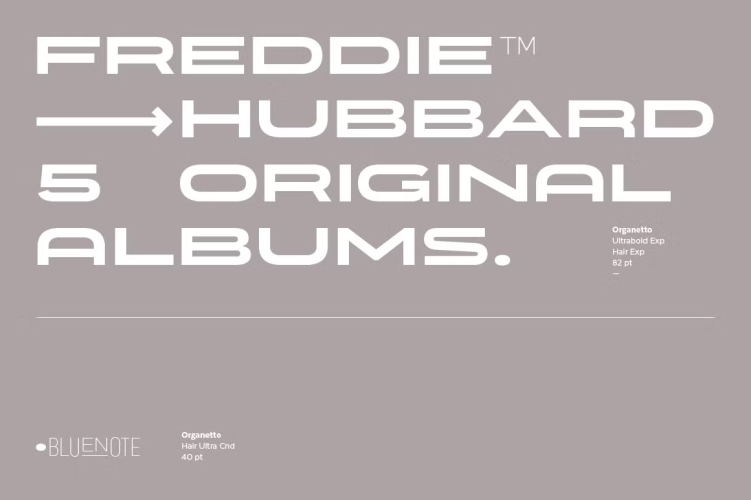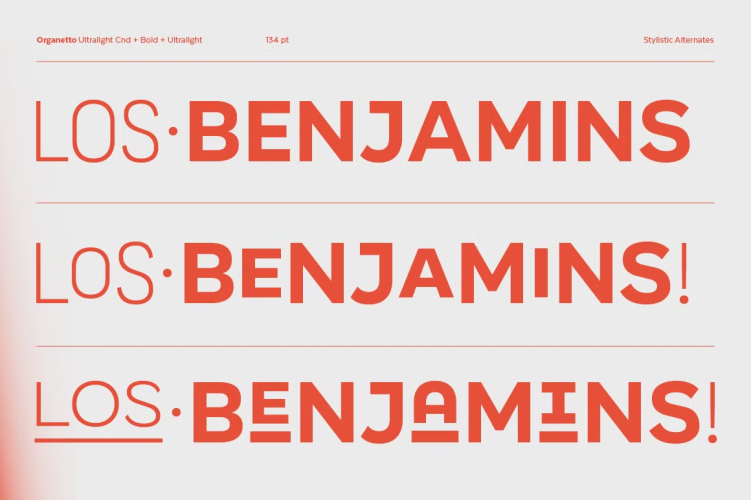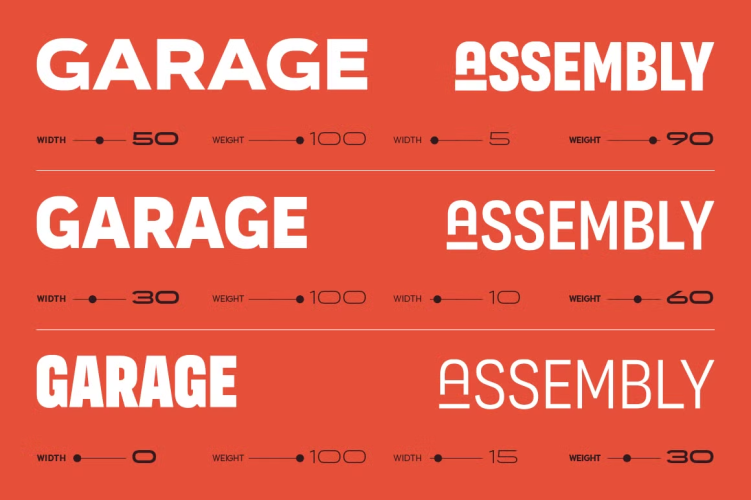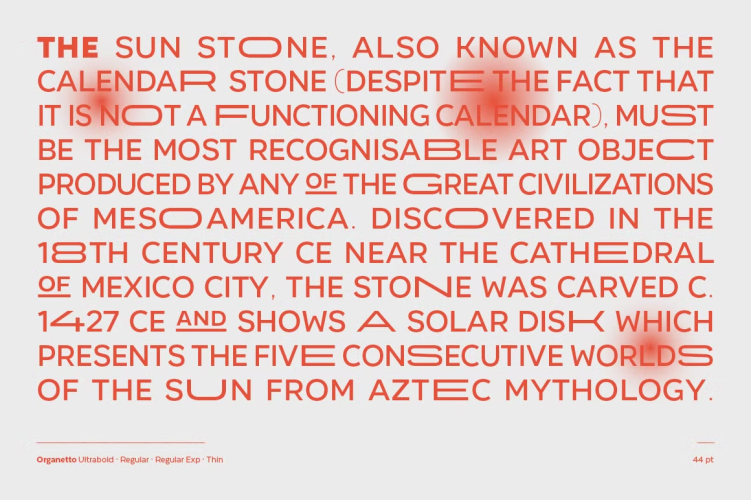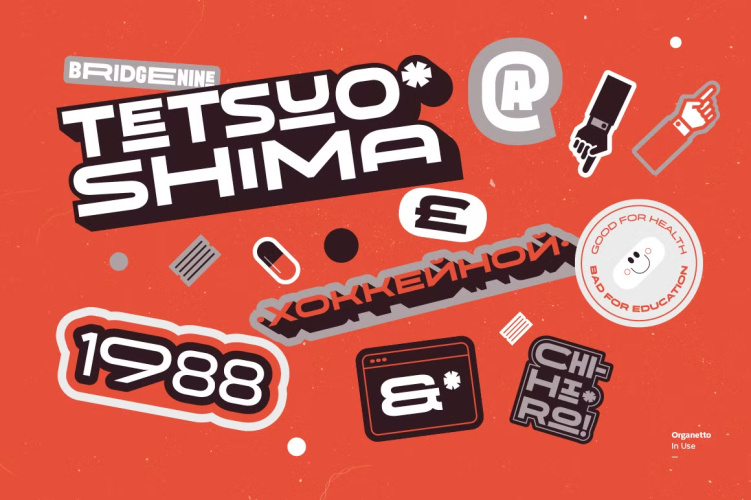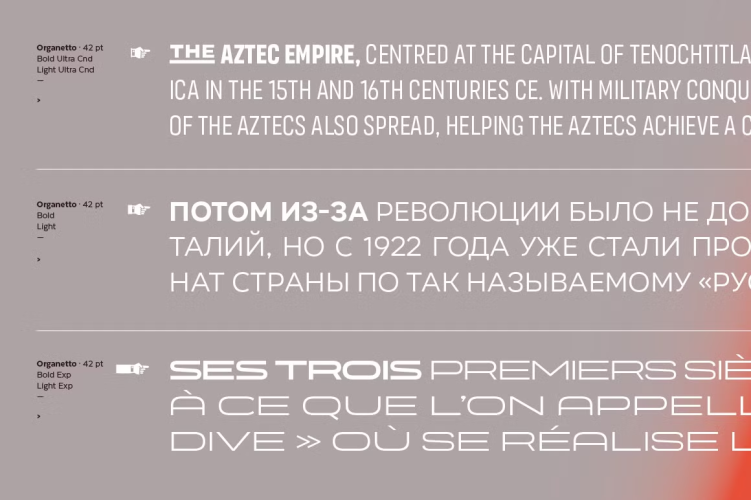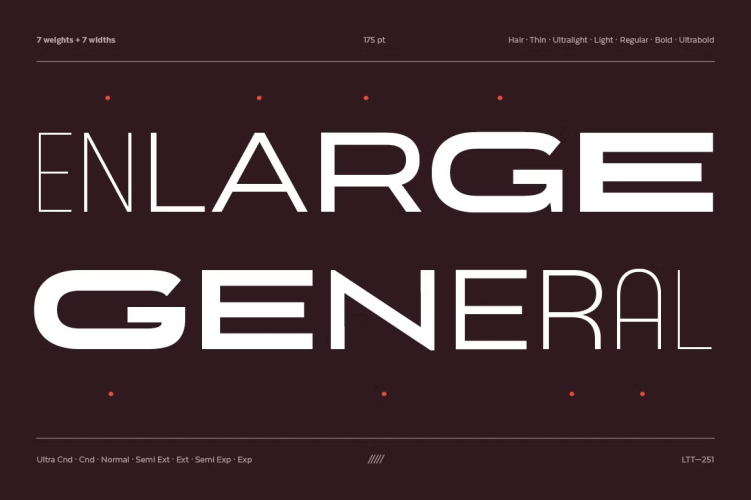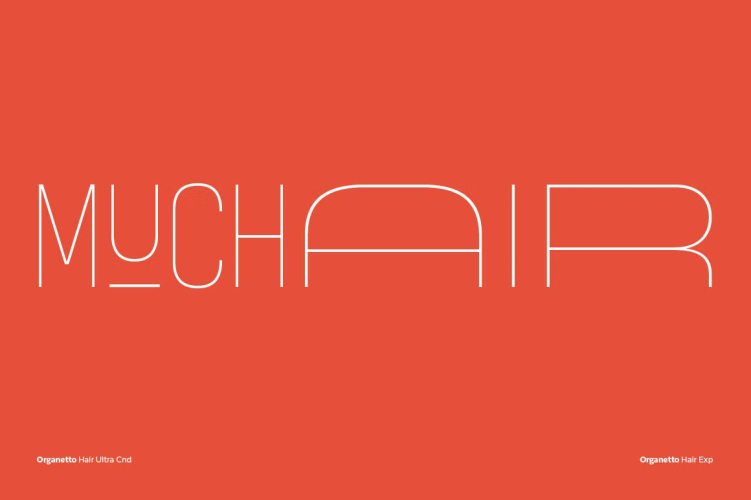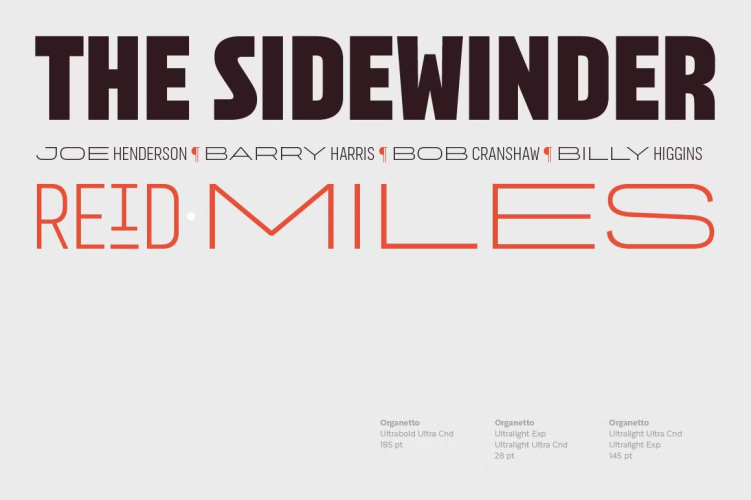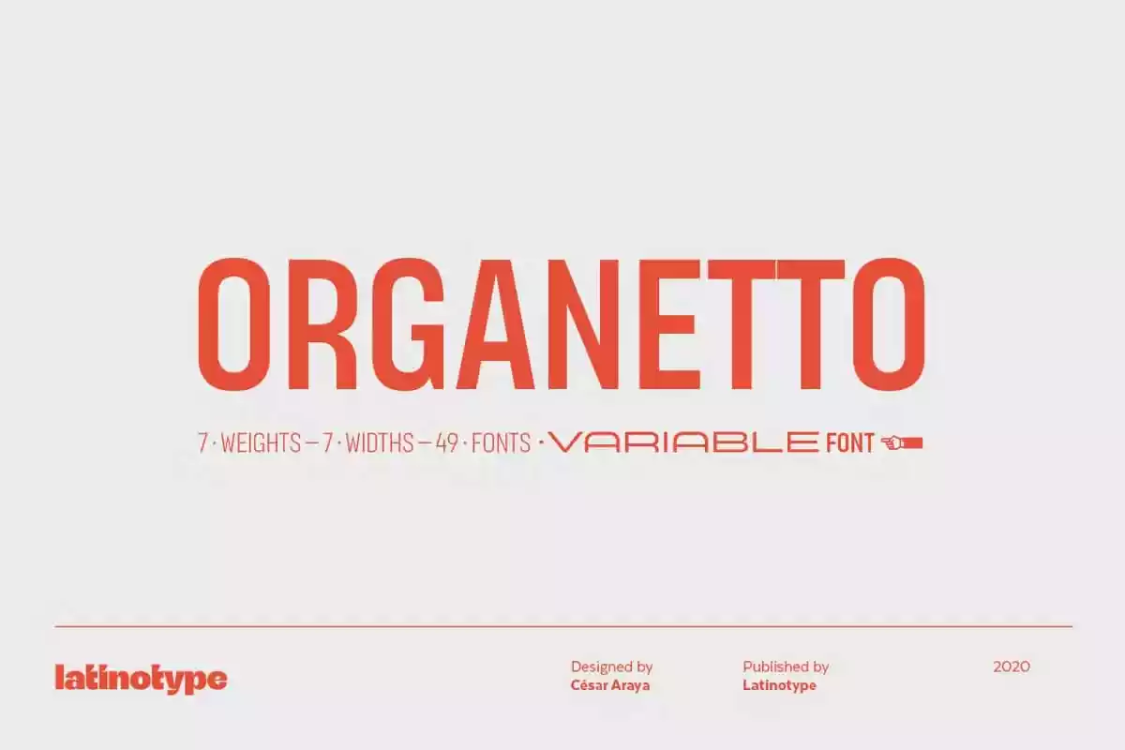
Organetto Font
Organetto is a typeface inspired by the lettering found on Art Deco posters. Its design embraces the latest digital font technology. This versatile font contains multiple widths, making it ideal for every design need.
In addition to its functional geometric style and widths, Organetto includes alternate characters that provide even more design options. All these features, logos, wordmarks, short text, etc., make the font an excellent choice for graphic designers and art directors.
Organetto is a sans-serif typeface with modern proportions and straight-edge terminals. It comes in 7 weights, ranging from Hair to Ultrabold, and 7 widths (from Ultra Condensed to Expanded) and contains 397 characters that support 180 different languages. Organetto also includes OpenType features—3 sets of alternates, catchwords, and titling.
Organetto Font is a Sans Serif Fonts font that brings a professional and versatile look to your projects. Organetto is a typeface inspired by the lettering found on Art Deco posters.